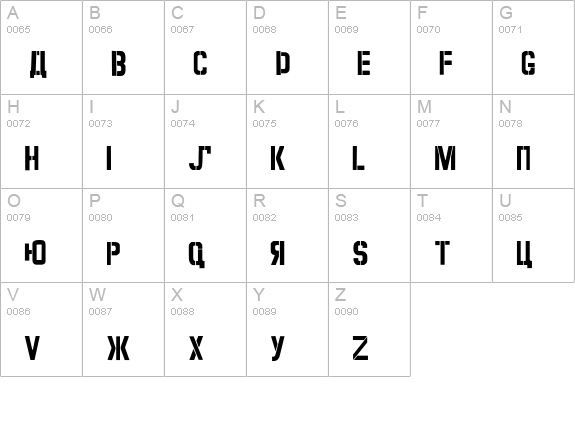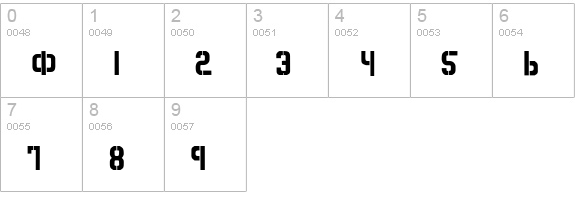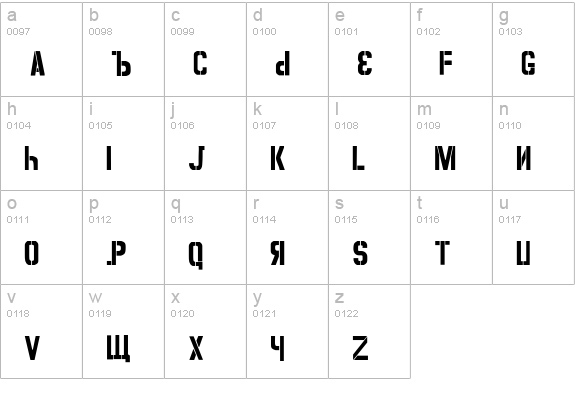
RadioFlat Font Details
RadioFlat is a captivating and versatile font that will add a touch of modernity to any design project. With its clean lines and geometric shapes, this font exudes a sense of simplicity and sophistication. Its sleek and stylish appearance makes it perfect for a wide range of applications, from branding and advertising to web design and print materials. What makes RadioFlat even more appealing is that it is available for free download at FontsMarket.com. This means that you can easily access this amazing font without breaking the bank. Whether you are a professional designer or a hobbyist, having access to high-quality fonts can significantly enhance your creativity and elevate your projects to new heights. Not only does RadioFlat offer a stunning visual appeal, but it also boasts excellent legibility, making it a practical choice for both headline and body text. Its well-defined letterforms and generous spacing ensure optimal readability across various media platforms. The versatility of RadioFlat is further enhanced by its extensive glyph set, including alternate characters, ligatures, and multilingual support. This allows you to customize and adapt the font to suit your specific design needs, ensuring that your creations truly stand out from the crowd. Whether you are looking to create eye-catching logos, sleek website designs, or impactful editorial layouts, RadioFlat is the go-to font that will never disappoint. And the best part is, you can download it for free at FontsMarket.com. So why wait? Unlock your creativity and elevate your designs with RadioFlat today!